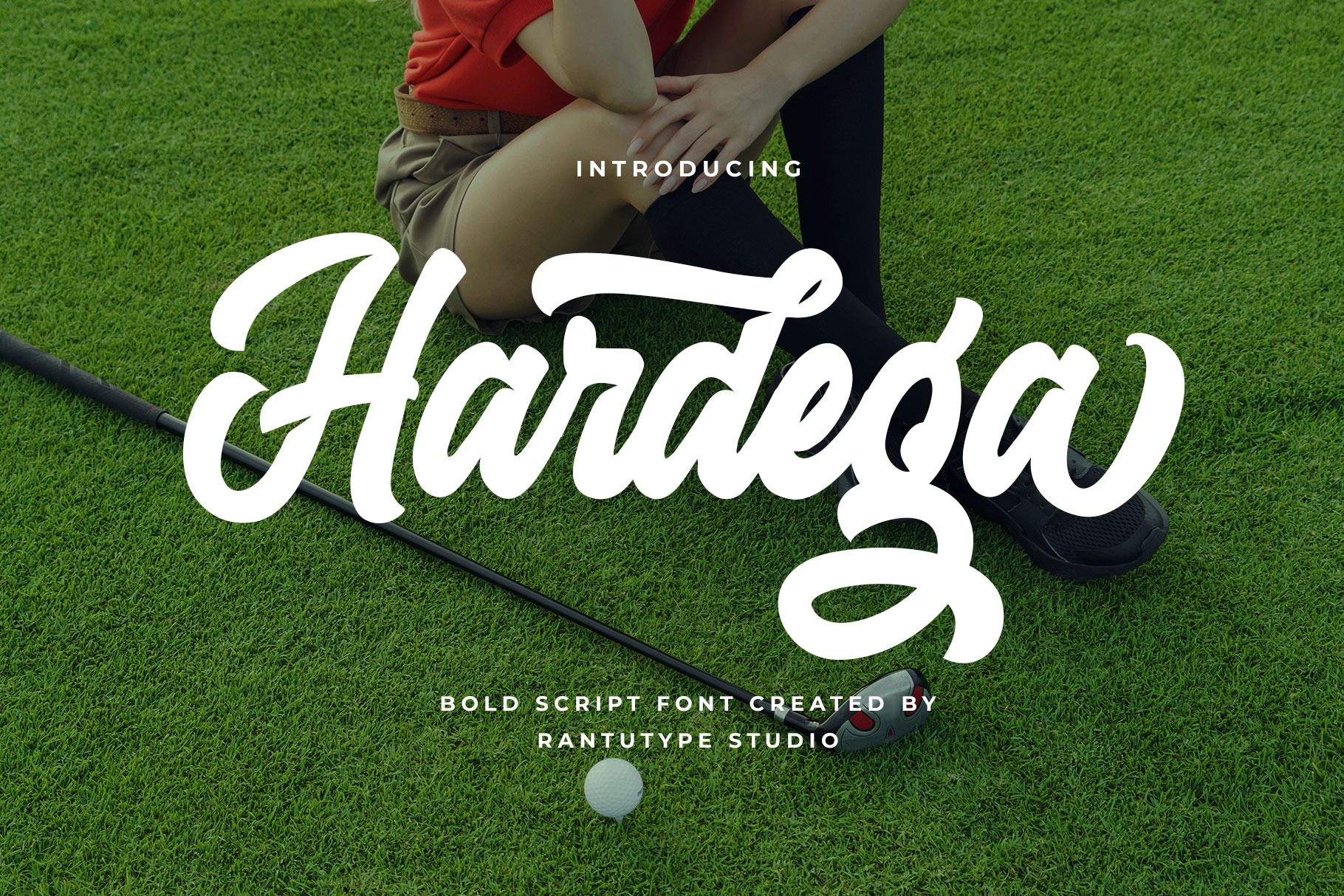
Hardega Bold Script Font
Hardega is bold script font with modern authentic style. Hardega bring unique shape in each detail character and versetile. Hardega is a perfect choice for any creative endeavor, lifestyle design such as logos, title, watermark on photography, cover, branding, display and magazine, wedding event, corporate brand, quotes, album cover, business card, business project, company branding and more project with handwritten taste.
- Alternate and ligature